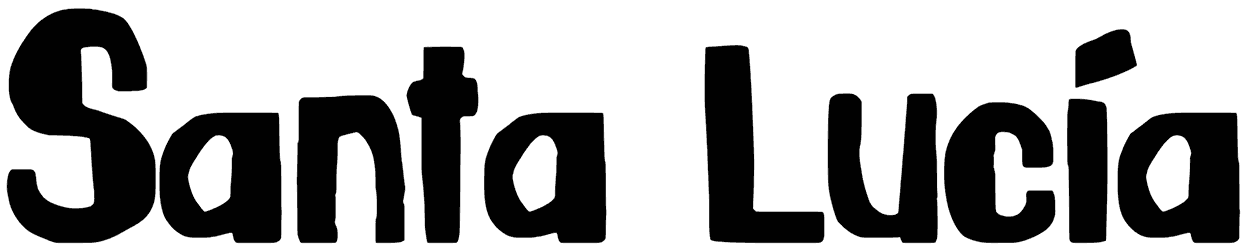
Santa Lucía Font
Santa Lucía is a fancy cartoon font that can be used to inject fun and whimsy into any design. Santa Lucía’s lovely swooping letters are ideal for invitations, greeting cards, posters, and commercials because they instantly elevate any piece with an air of charm.